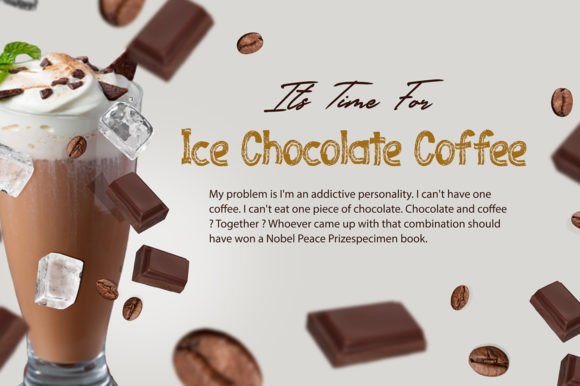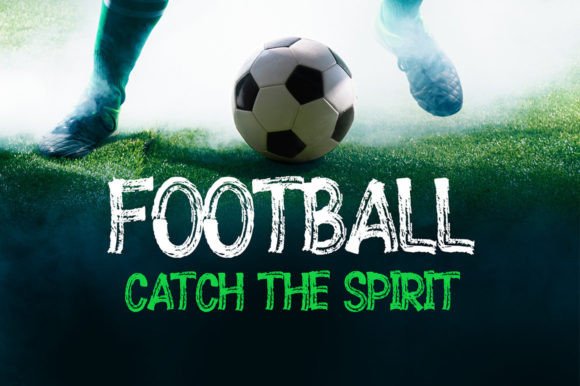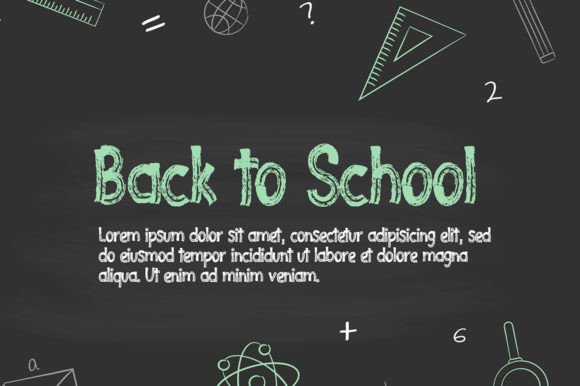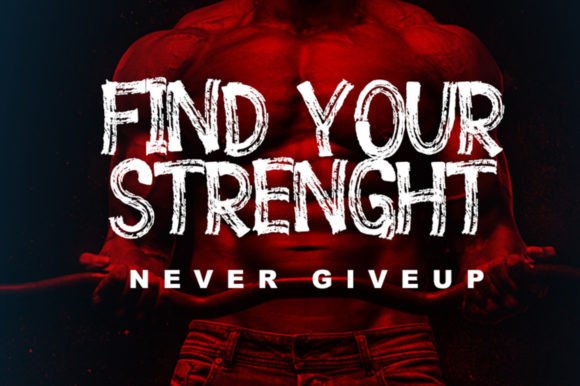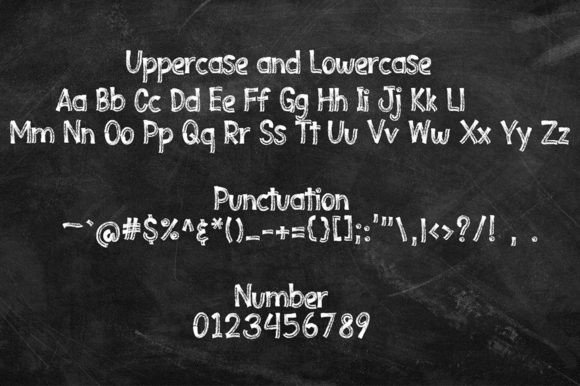
Choco Break Font
Choco Break Font Download – Modern Dry Brush Script
The Choco Break Font download is a stylish dry brush handwritten typeface that adds boldness and creativity to your designs. With its textured strokes and modern aesthetic, this font feels authentic and versatile, making it an excellent addition to any designer’s font library. Whether for posters, invitations, or branding projects, Choco Break delivers a unique edge.
A Cool and Modern Dry Brush Style
The Choco Break Font download stands out with its rough, textured strokes that mimic the look of dry brush lettering. This gives your designs a handcrafted and energetic feel, perfect for projects that need a modern and artistic vibe.
Perfect for Posters and Branding
The Choco Break Font download is ideal for posters, logos, and branding materials. Its bold brush texture ensures that your message captures attention while maintaining a creative and stylish personality. From lifestyle brands to artistic campaigns, this font adds impact and originality.
Great for Invitations and Packaging
The Choco Break Font download also works beautifully in event invitations, greeting cards, and product packaging. Its natural brush look adds warmth and uniqueness, helping your creations stand out in both print and digital formats.
From social media graphics and banners to book covers and apparel design, the Choco Break Font download adapts across multiple platforms. Its textured brush strokes provide an expressive quality that feels both casual and professional.
Readability with Artistic Flair
Some brush fonts can be hard to read, but the Choco BreakFont download keeps text legible while showcasing its unique dry brush character. This makes it a dependable choice for both headlines and smaller text elements.
Why Choose Choco Break Font?
Among brush fonts, the Choco BreakFont download stands out for its cool dry brush texture and modern aesthetic. It’s bold enough for branding but versatile enough for casual designs, making it a valuable asset for any creative project.
Add Bold Style to Your Designs
Typography helps define the mood of your work, and the Choco BreakFont download adds creativity, texture, and impact. Whether for posters, logos, or invitations, this font ensures your projects shine with a modern handcrafted touch.